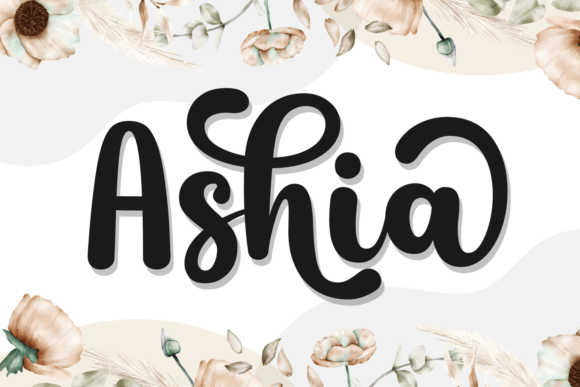
A Fresh Twist on Typography: Discovering the Joy of Ashia Font
Have you ever been brainstorming a design project, and suddenly, a spark of inspiration hits you? You see a bold, playful font that instantly elevates your idea from ordinary to extraordinary. That’s exactly what happens when you lay eyes on the Ashia Font. This captivating script font is designed to stand out, with its thick strokes and flowing letterforms making it perfect for greeting cards, product packaging, social media, and playful branding.
Ashia Font combines a modern hand-lettered style with whimsical flair, offering versatility in both casual and creative projects. Its delightful curves and warm presence bring joy to every word, making it a valuable asset for designers looking to add a touch of personality to their work.
Ashia Font Key Features
- Font Family: Ashia Font is a unique, handwritten font family.
- Unique Characteristics: Features a mix of elegant and playful elements, making it suitable for various design applications, including invitations, logos, and packaging.
- Font Styles: Available in multiple font styles, including Regular, Bold, Italic, and Bold Italic.
Ashia Font Review
I recently had the chance to work with the Ashia font, and I must say, it’s a beautiful addition to any design project. ✨ The font’s elegant and sophisticated feel is perfect for creating a luxurious or high-end atmosphere. It’s particularly well-suited for use in headings, logos, and other display typography.
Here are some of the things that I like about Ashia:
- ✨ Beautifully crafted letterforms with a high level of detail and nuance
- ✨ Suitable for a wide range of design projects, from fashion and luxury brands to high-end technology and finance
- ✨ Excellent legibility, making it easy to read even at small font sizes
- ⚠️ The font may not be as suitable for body text or large blocks of text, where readability and consistency are key
- ⚠️ The font’s high level of detail can sometimes make it difficult to edit or modify in certain design software
Overall, I’m impressed with the Ashia font and would recommend it to designers looking to add a touch of elegance and sophistication to their projects. However, it’s essential to use it judiciously and in contexts where its unique qualities will shine.
Tips for Getting the Most Out of Ashia Font
To maximize the effectiveness of Ashia Font, use it for:
- Headings and titles to add a touch of elegance.
- Body text to create a professional and readable layout.
- Combining with other fonts to create a unique and eye-catching design.
Common Use Cases for Ashia Font
Ashia Font is ideal for:
- Business cards and corporate materials.
- Magazine and newspaper layouts.